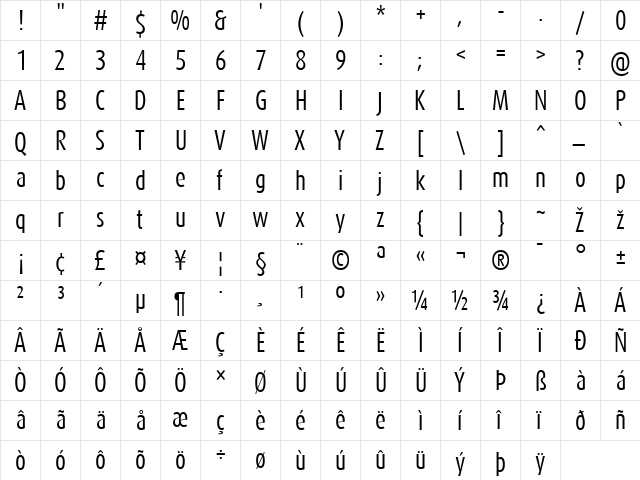
DaxCompact-Regular Regular
Regular · Hans Reichel, published by FontShop International for the FontFont library  ·
Foundry Hans Reichel, published by FontShop International for the FontFont library
Design Context for DaxCompact-Regular Typeface
DaxCompact-Regular offers clean, dependable letterforms without strong stylistic allegiance, making it a practical choice for designers who need flexibility. Its narrow stance lets it pack a punch even in space-constrained designs.